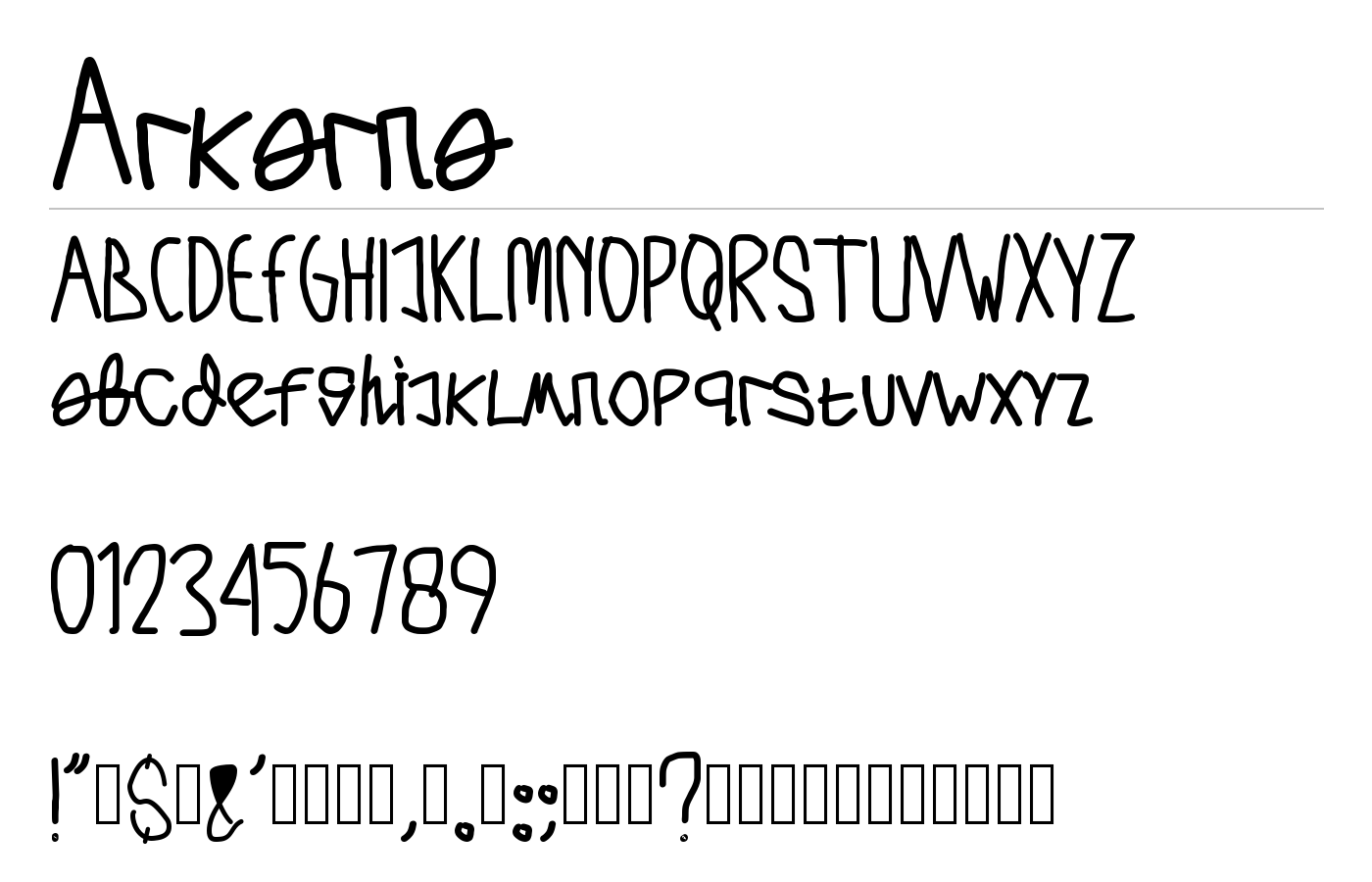
Arkarna Font is a quirky, hand-drawn sans serif typeface with a playful and informal vibe. Its tall, narrow letterforms and uneven strokes give it a casual, artistic feel, making it perfect for creative projects, children’s books, or any design that wants to appear friendly and approachable. This font works best in display uses like logos, posters, or headlines where a unique, personal touch is desired.
Arkarna Font